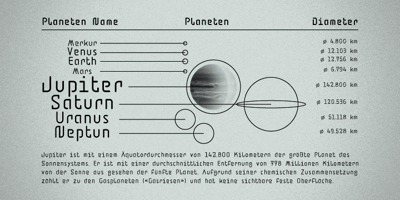
The Argone Font is exceptionally suited for diverse professional applications including corporate identity systems, modern business communications, tech company branding, architectural firm presentations, financial service materials, contemporary magazine layouts, sleek website designs, professional service marketing, innovative startup branding, and sophisticated advertising campaigns. Its distinctive character makes it particularly effective for technology companies, professional services, modern enterprises, and forward-thinking businesses seeking to convey innovation, reliability, and contemporary sophistication in their visual communications and brand presentations.
What makes the Argone Font incredibly exciting is its perfect fusion of geometric precision and humanistic warmth combined with cutting-edge typographic innovation. This contemporary typeface captures the essence of modern business excellence while incorporating sophisticated design elements that ensure optimal performance across today's digital-first landscape. The font's captivating character emerges from its clean geometric foundation, balanced proportions, and carefully engineered details that create a sense of technological advancement and professional trustworthiness, making it perfect for brands seeking to establish credibility and appeal to modern, tech-savvy audiences.
The Argone Font family offers a comprehensive collection of weights and styles designed to accommodate various contemporary branding requirements. The collection typically includes thin, light, regular, medium, bold, and black weights, with many versions offering sleek italic variants that enhance the font's modern appeal and professional character. Some editions may include condensed and extended versions, along with stylistic alternates that provide additional design options for creating unique typographic treatments and innovative brand applications.
Contemporary designers and modern marketing professionals consistently select the Argone Font Free Download for its exceptional versatility and professional impact. The font features meticulously engineered spacing and kerning that ensures optimal readability across various digital and print applications, from detailed technical documentation to large-scale corporate signage. Its robust construction maintains clarity and sophistication across different sizes and viewing conditions, while the comprehensive character set includes uppercase and lowercase letters, numerals, punctuation marks, and special symbols, along with extensive language support for international business communications and global technology projects.
The Argone Font represents the evolution of contemporary business typography, combining modern design principles with professional functionality. Its sophisticated aesthetic demonstrates innovation while maintaining the reliability required for serious corporate applications. The font's remarkable adaptability allows it to work effectively in both minimalist tech contexts and complex information-rich layouts, ensuring consistent professionalism across corporate websites, business presentations, professional materials, and modern marketing campaigns.
Embrace modern excellence and professional innovation with the contemporary sophistication and cutting-edge design of the Argone Font, the ultimate choice for modern business typography excellence.